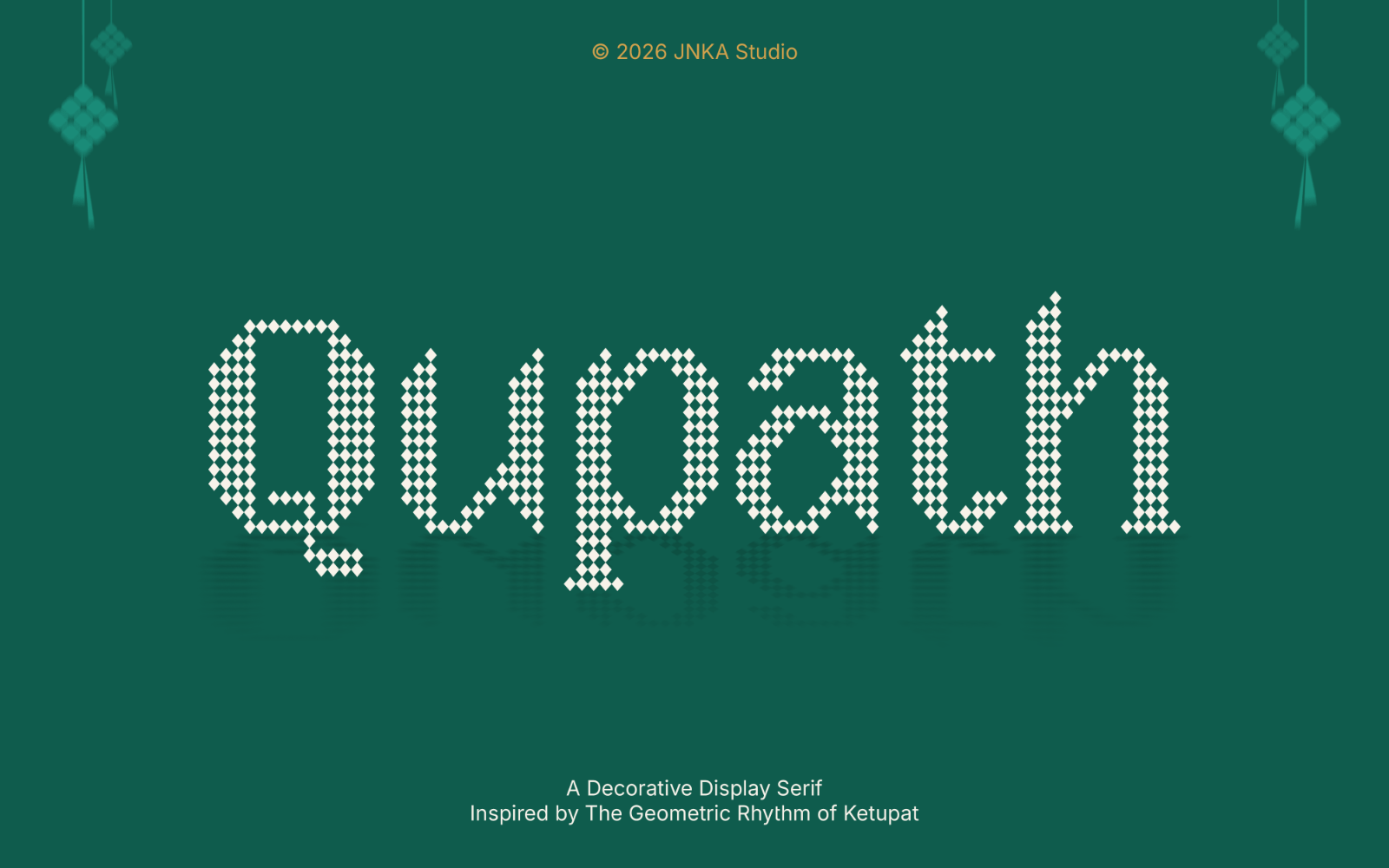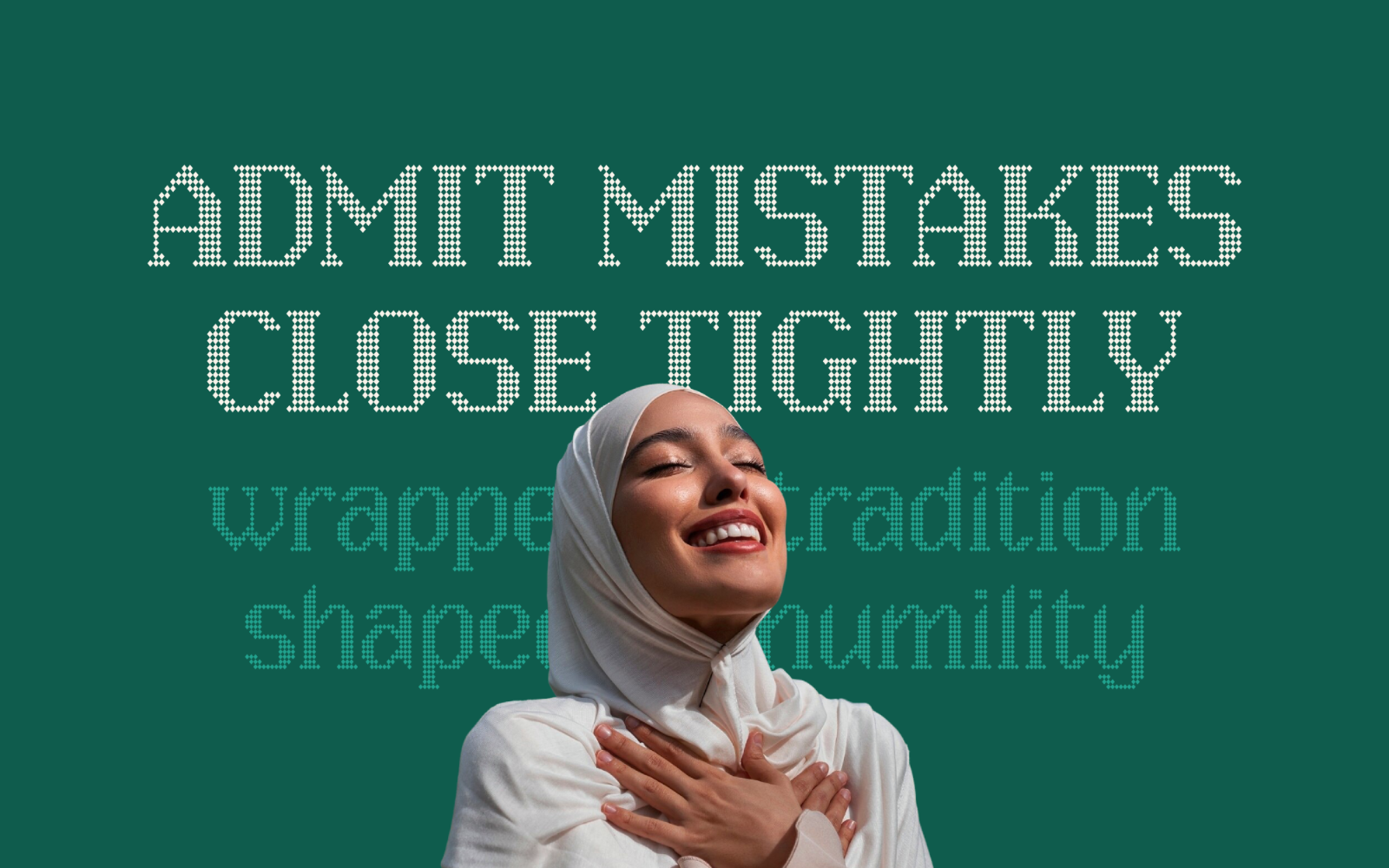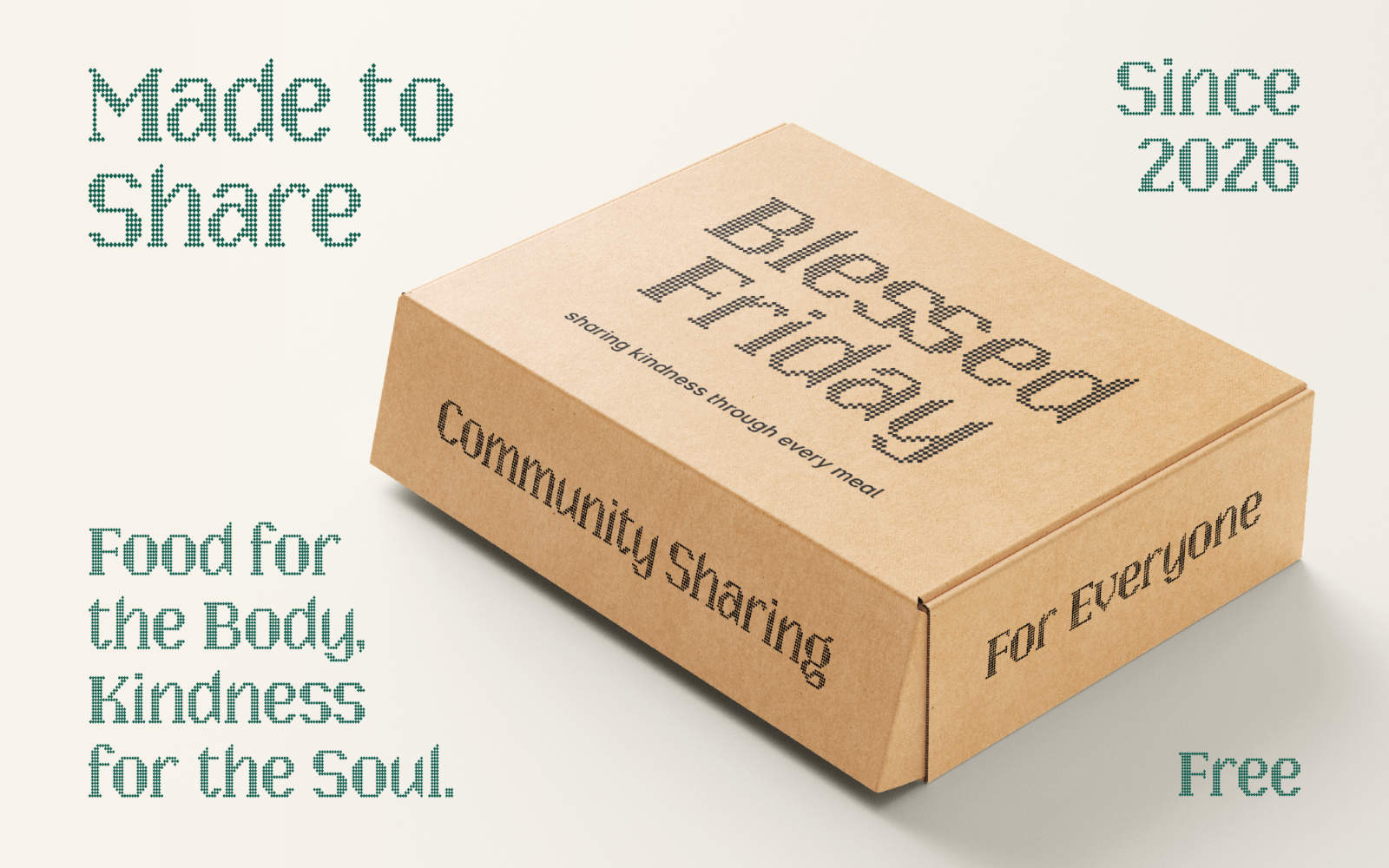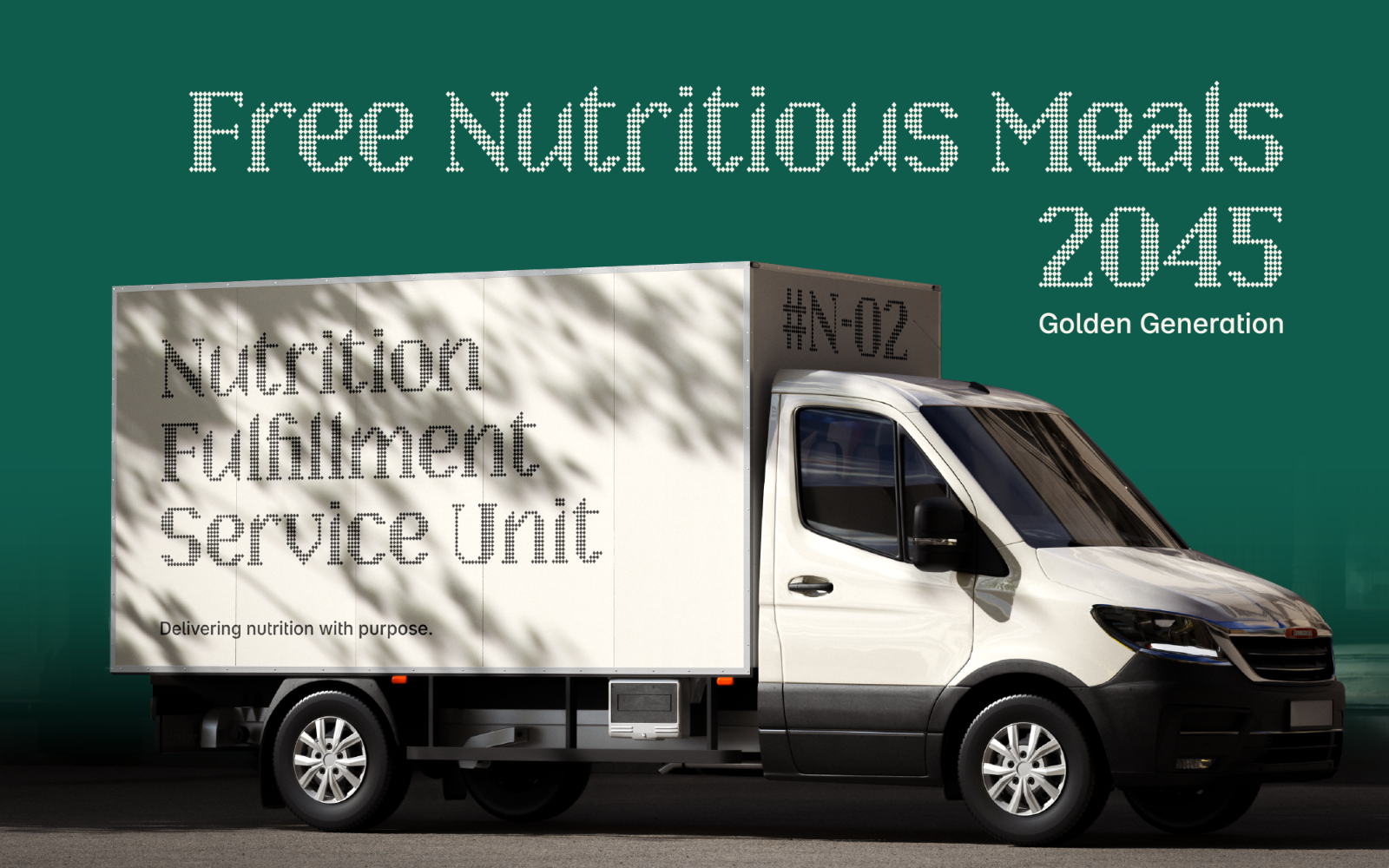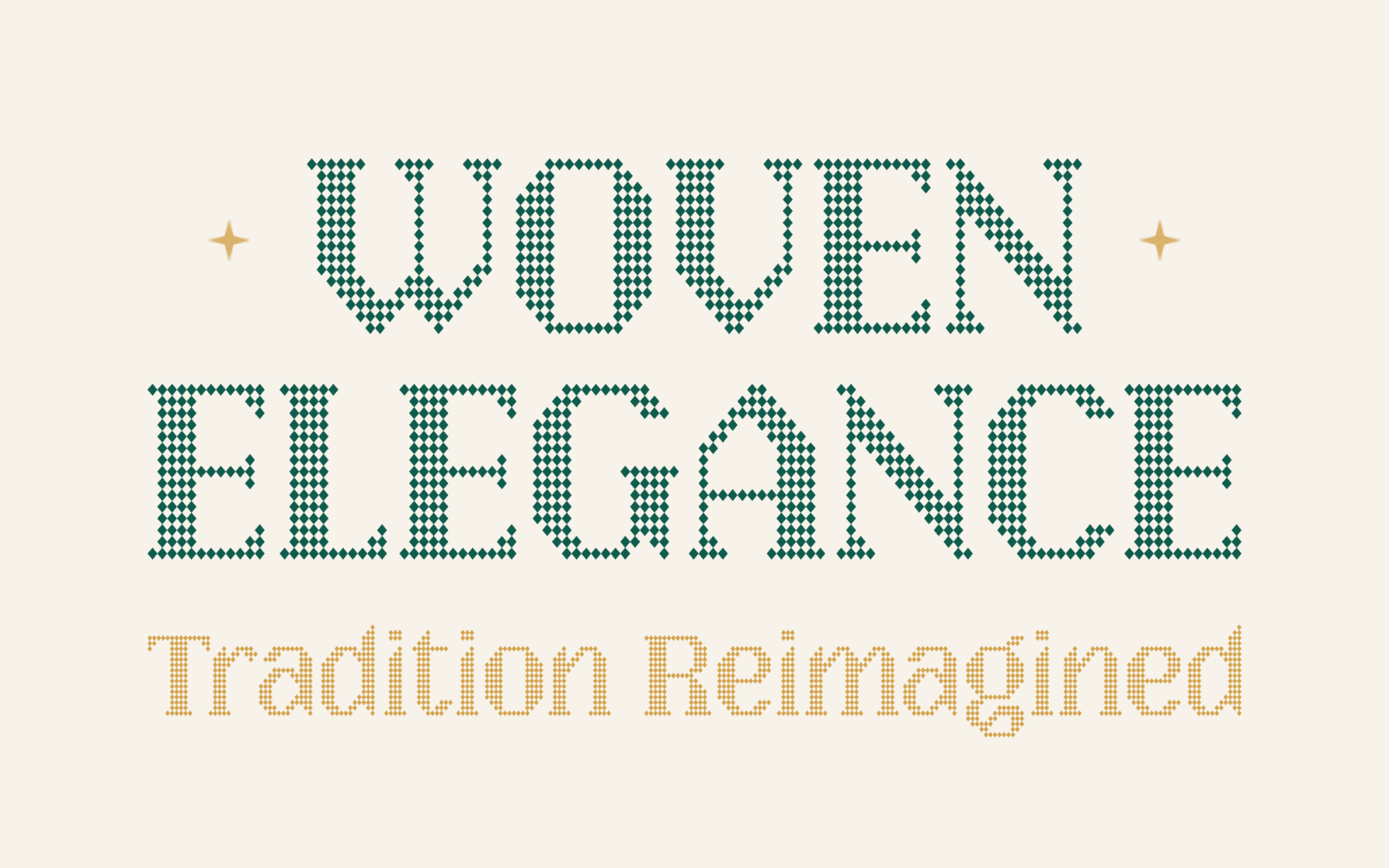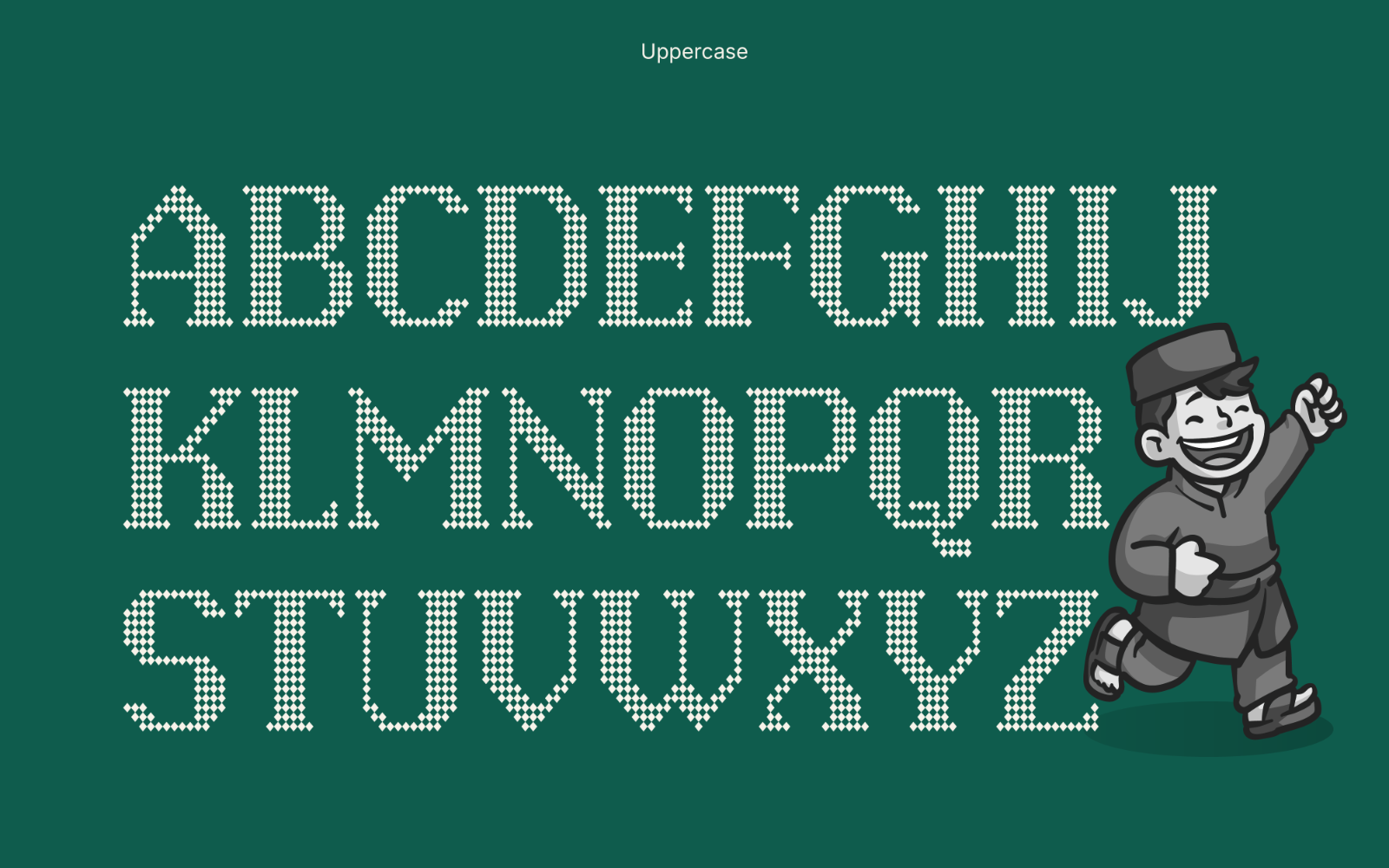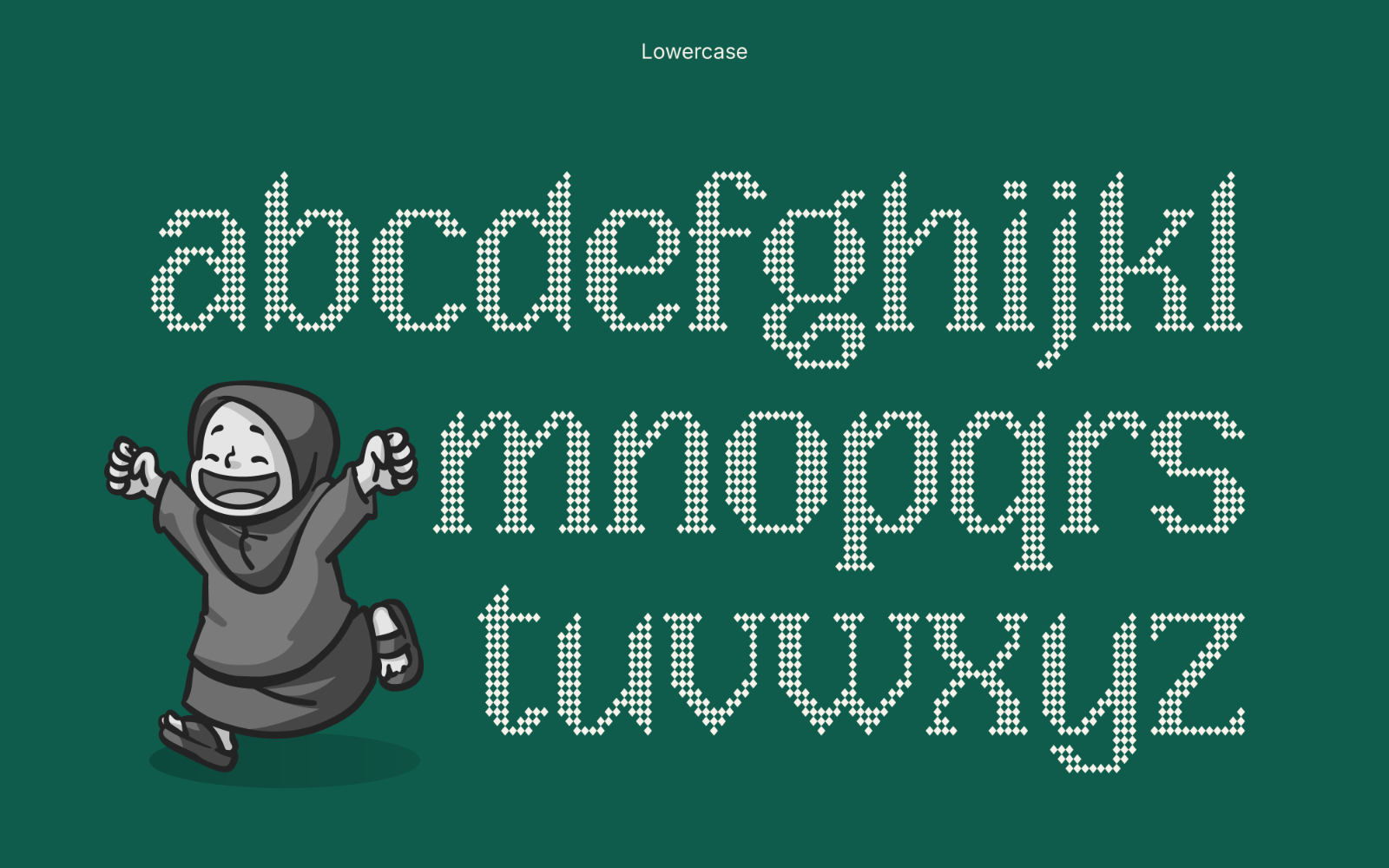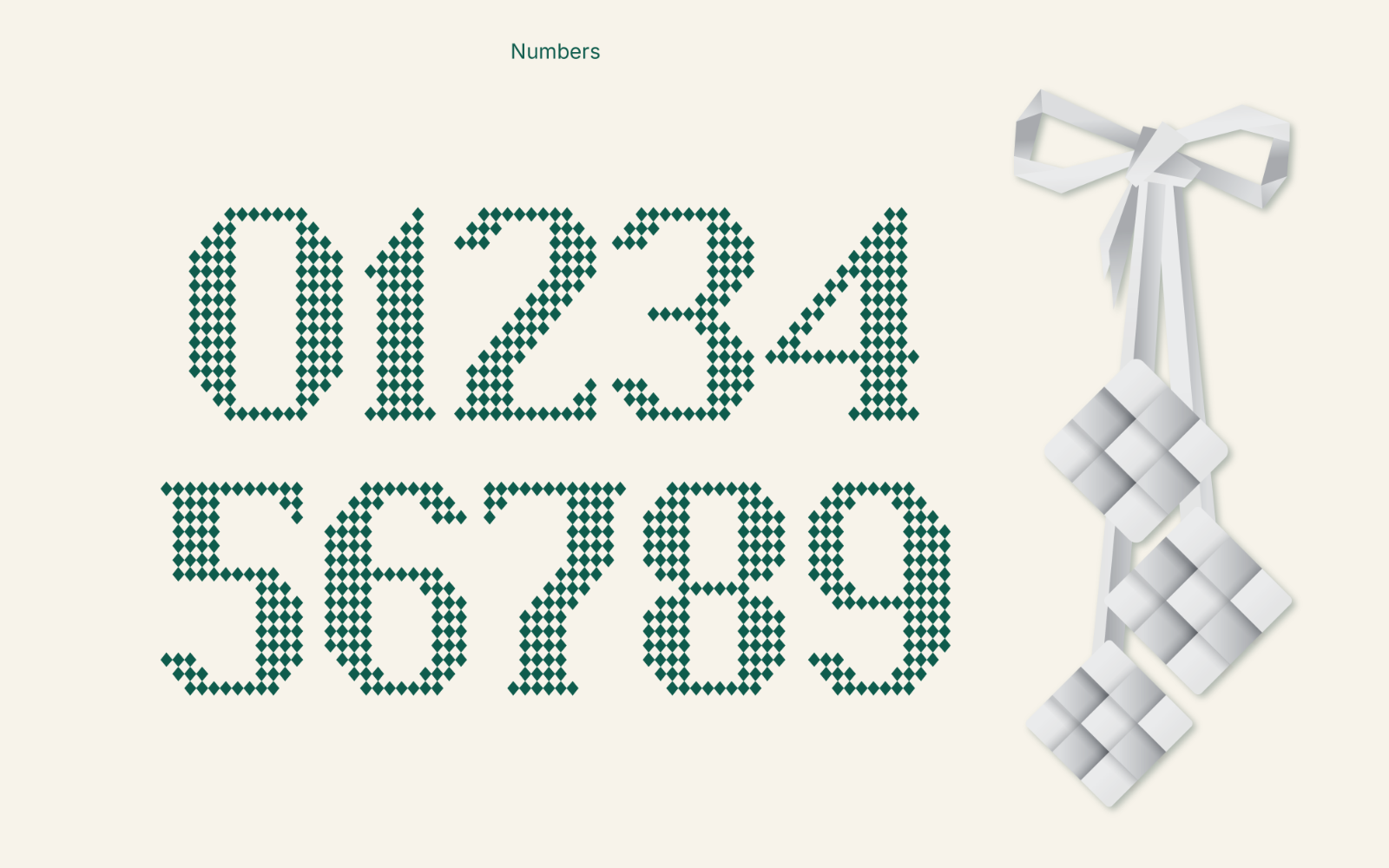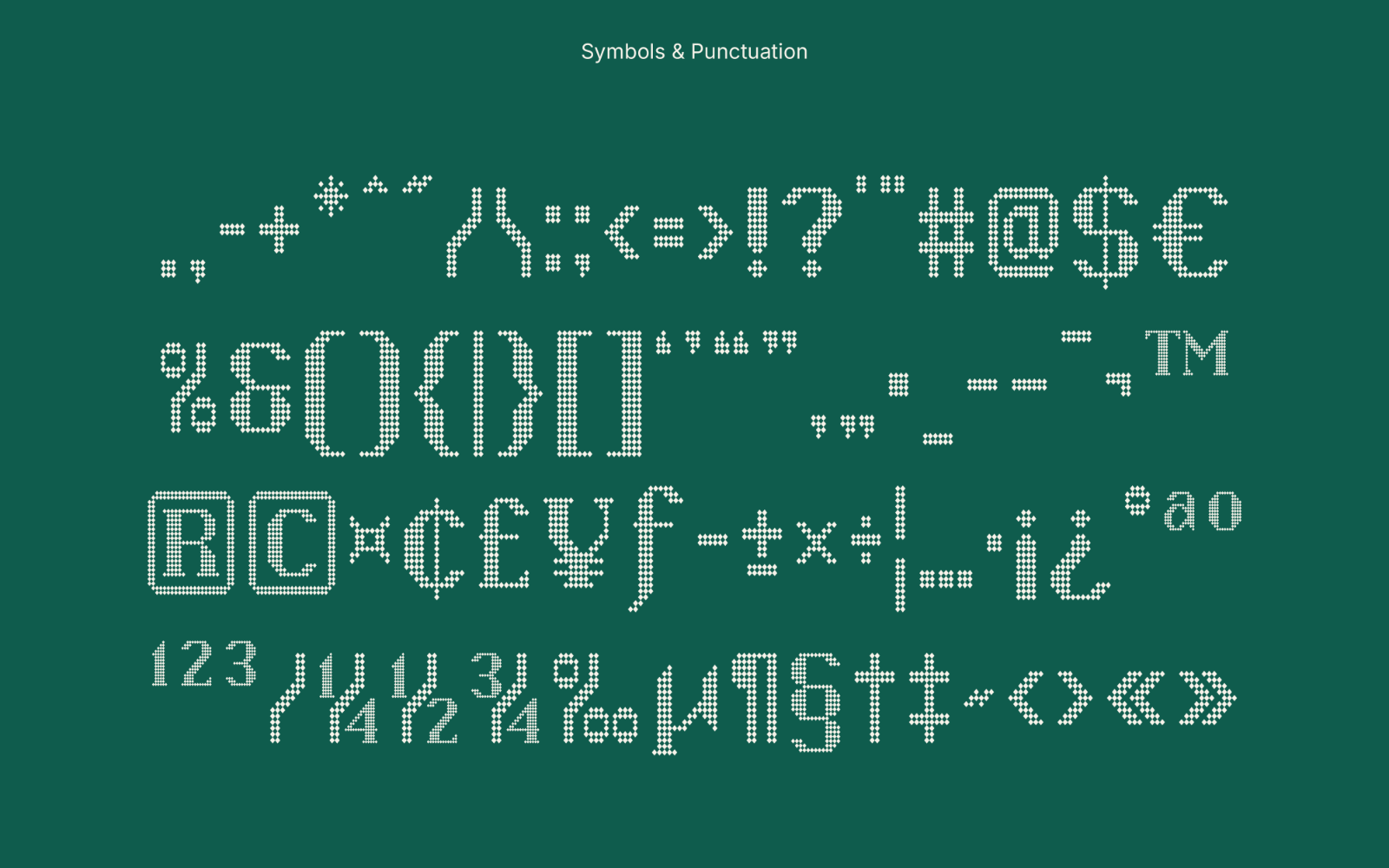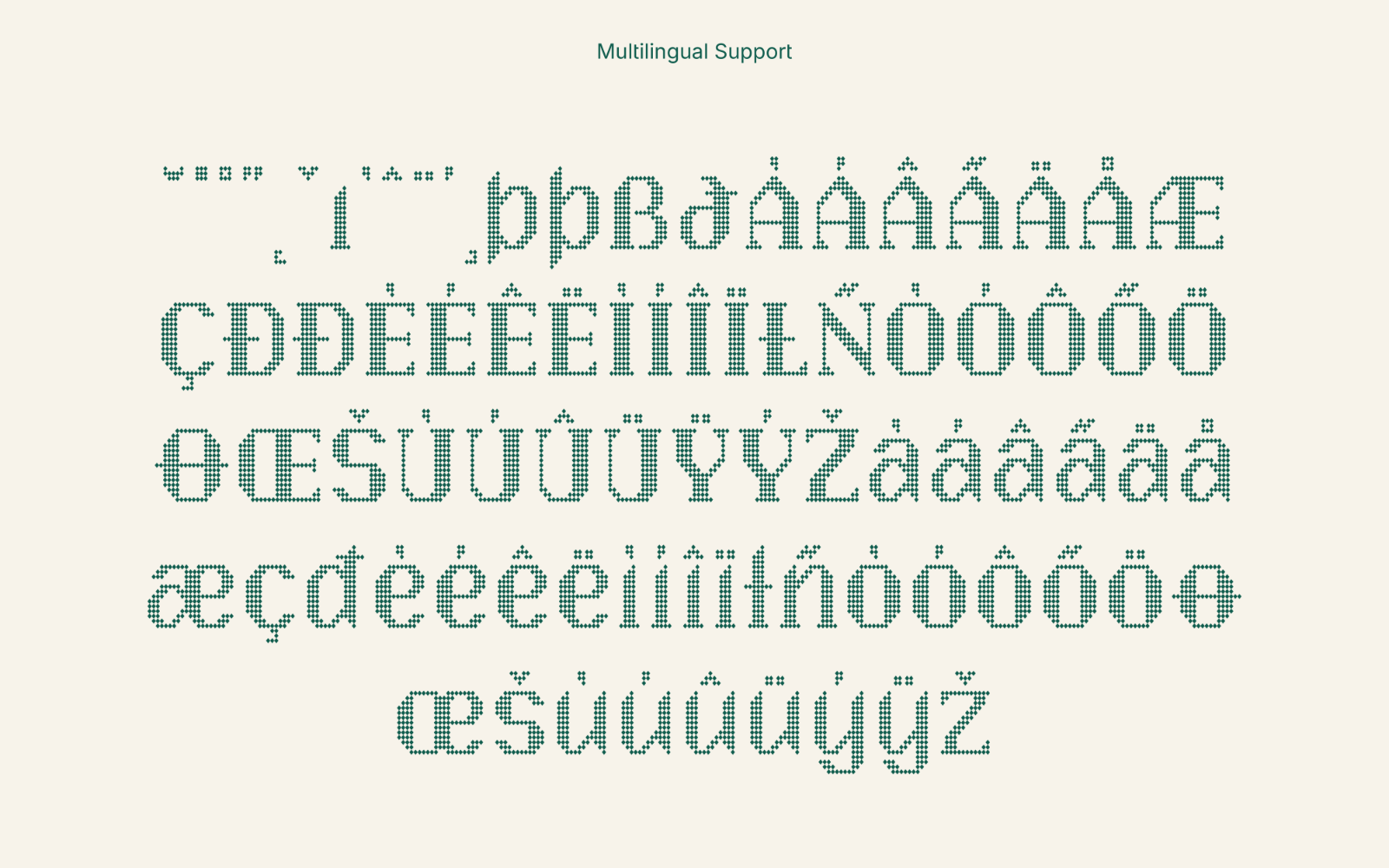
Qupath
Is a decorative display serif inspired by the geometric beauty of traditional ketupat weaving. Combining ornamental serif forms with woven diamond-like structures, Qupath brings a cultural yet contemporary character into typography. Designed to capture the warmth of tradition and the elegance of modern display type, it is perfect for branding, packaging, posters, editorial layouts, and festive visual identities.
Font Features:
• Uppercase & Lowercase Letters
• Numbers & Standard Punctuation
• Symbols & Special Characters
• Basic Multilingual Support (Latin-based)
• Stylistic Alternates
• Standard & Decorative Ligatures
• Fully PUA Encoded Characters
• Carefully Adjusted Kerning
• Approx. 243 Glyphs
• OpenType Features